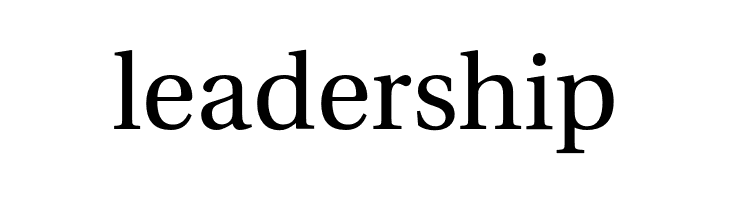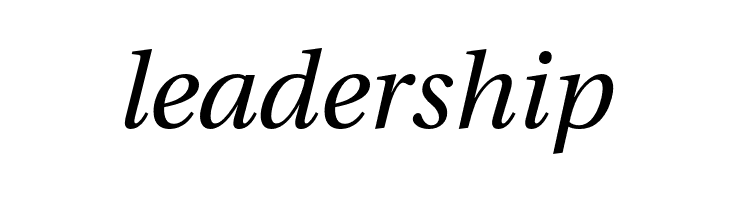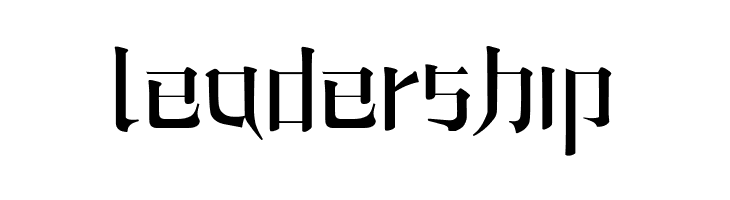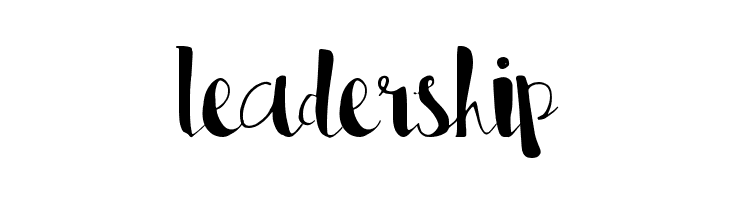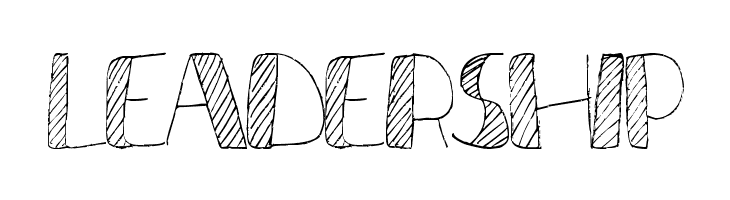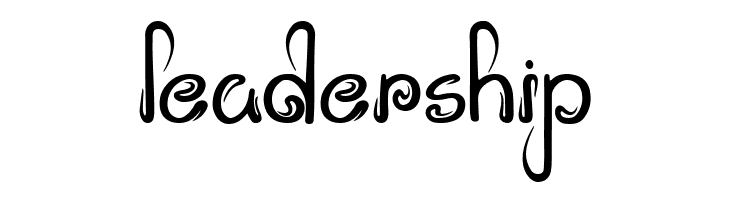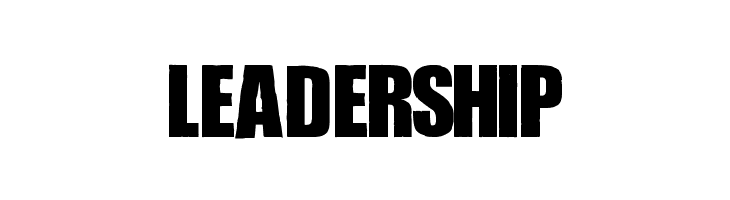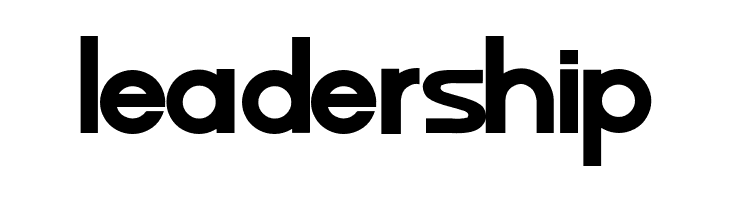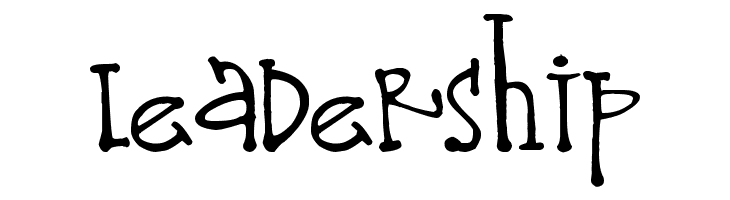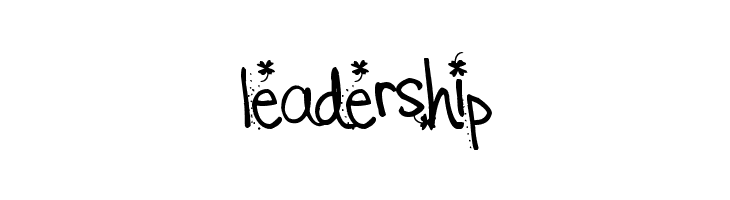
A playful, hand-drawn font with bold, rounded strokes and a whimsical style.
A modern, geometric font with clean lines and a futuristic aesthetic.
A modern, geometric font with bold, rounded lines and a futuristic style.
A playful, handwritten font with bold, irregular strokes and a whimsical style.
A playful, hand-drawn font with irregular, whimsical characters.
A modern gothic font with sharp, angular lines and geometric shapes.
A hand-drawn, sketch-style font with textured, playful lines.
A bold serif font with strong, authoritative strokes and classic design.
A bold, italicized font with strong, elegant characters.
A classic italic typeface with smooth, flowing lines and a refined aesthetic.
A refined serif typeface with balanced proportions and medium contrast, ideal for elegant designs.
A playful, liquid-inspired font with bold, flowing curves and whimsical design.
A bold, modern serif font with rounded edges and strong vertical lines.
A bold, angular font with a tribal and geometric style.
A whimsical, handwritten font with playful, uneven strokes.
A playful, handwritten font with rounded edges and a casual style.
A playful, bold handwritten font with rounded edges and consistent height.
A playful, hand-drawn font with a whimsical and sketchy style.
A playful handwritten font with star accents and a whimsical style.
A playful, patterned font with bold decorative letters and traditional serif numbers.
A bold, distressed font with a grunge texture and rugged appearance.
A playful, casual handwritten font with smooth, flowing lines and varying stroke widths.
A bold, modern font with geometric influences and strong visual impact.